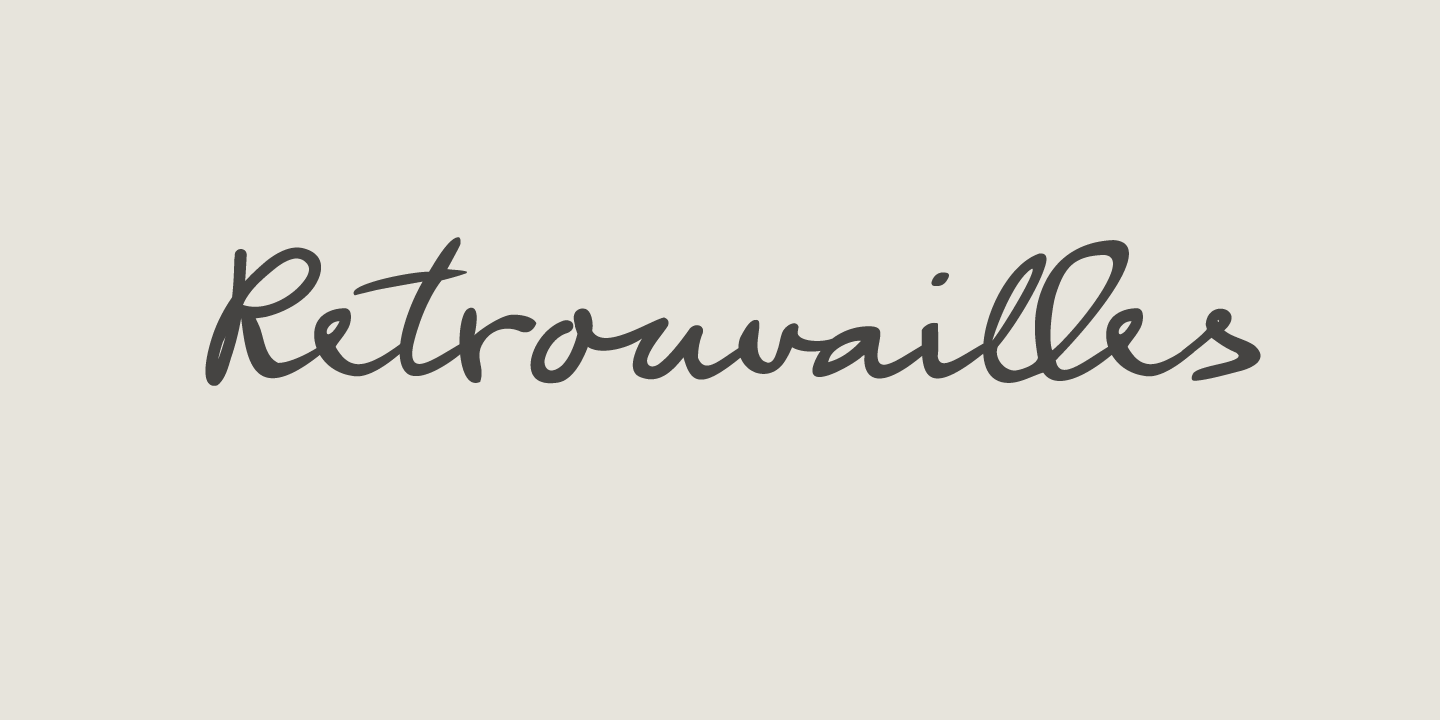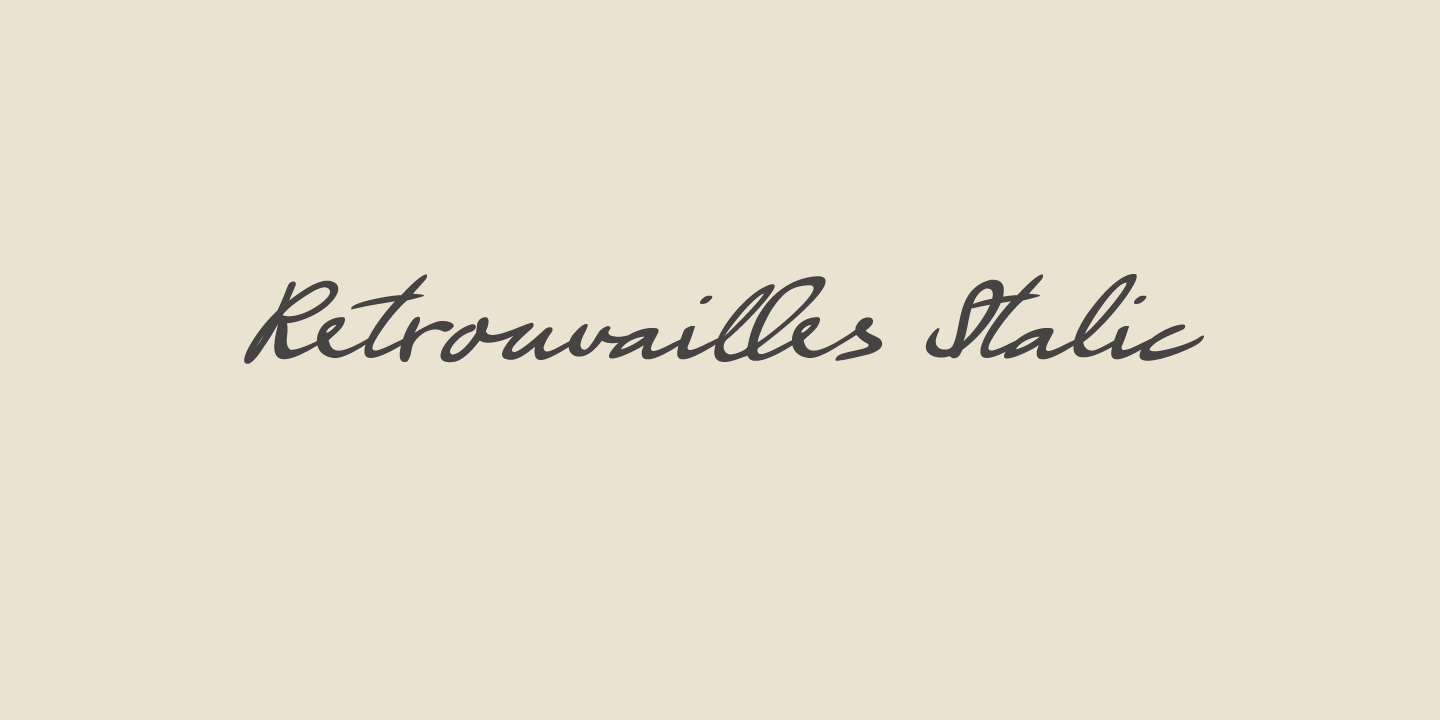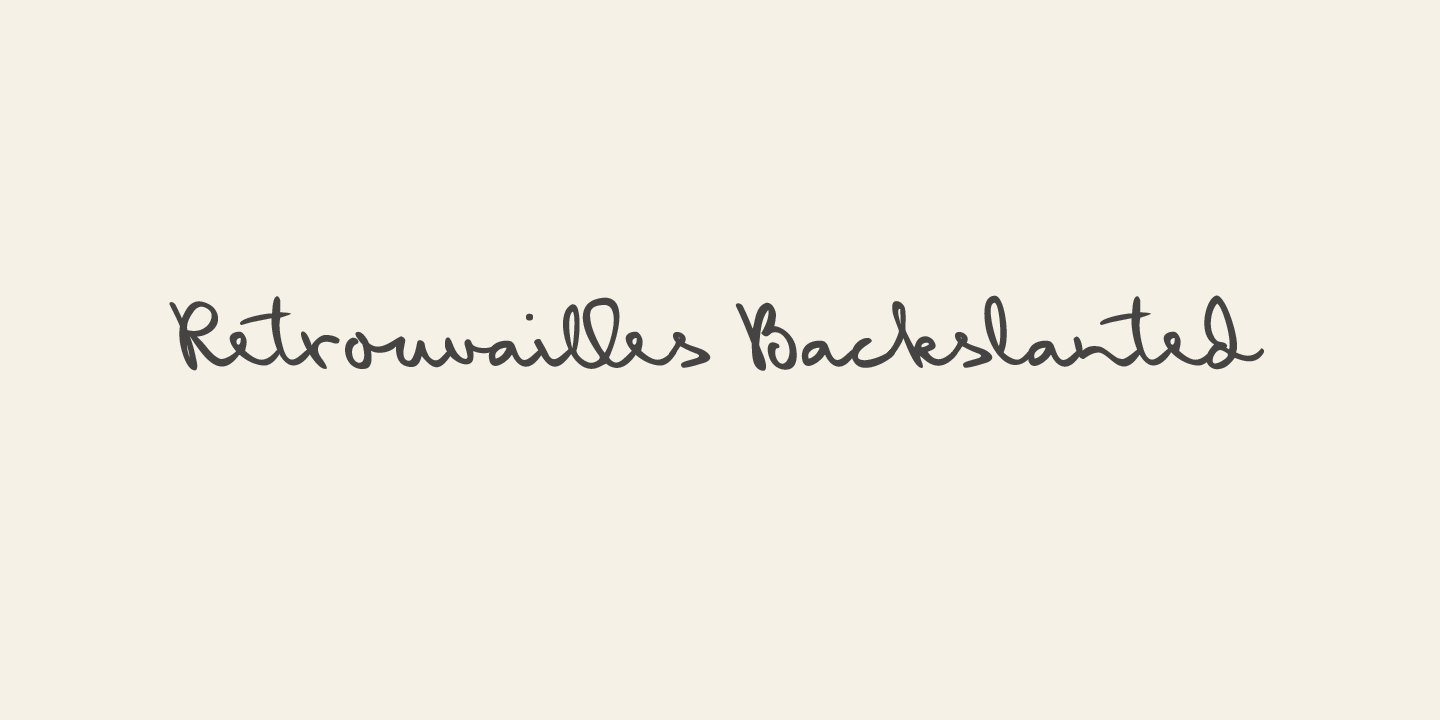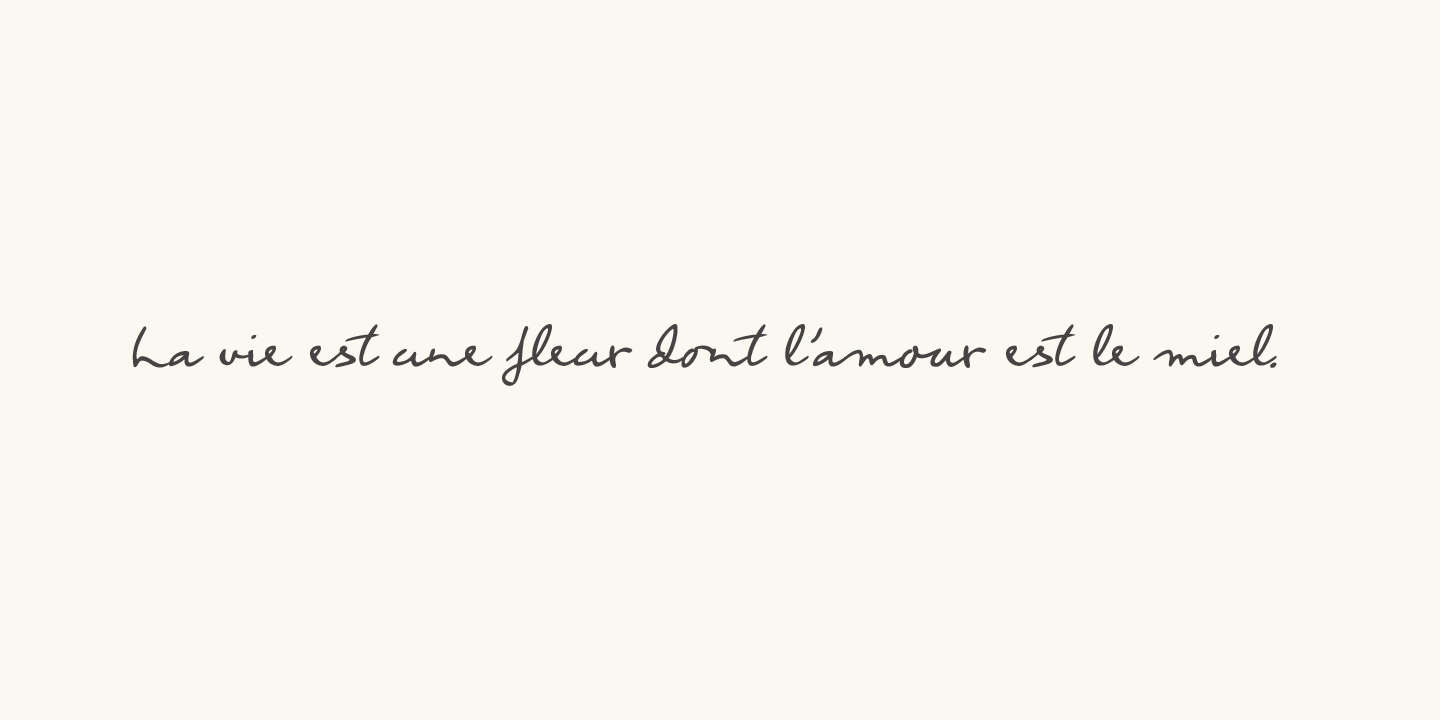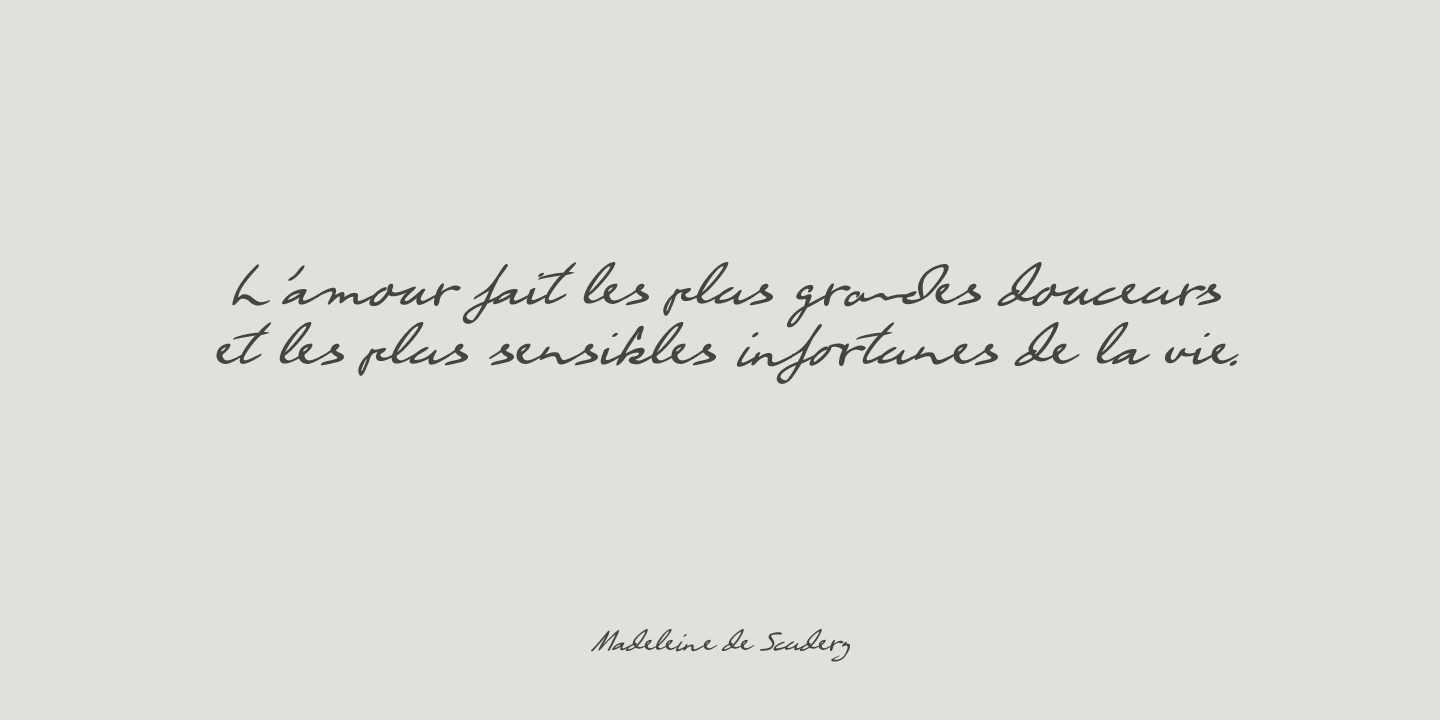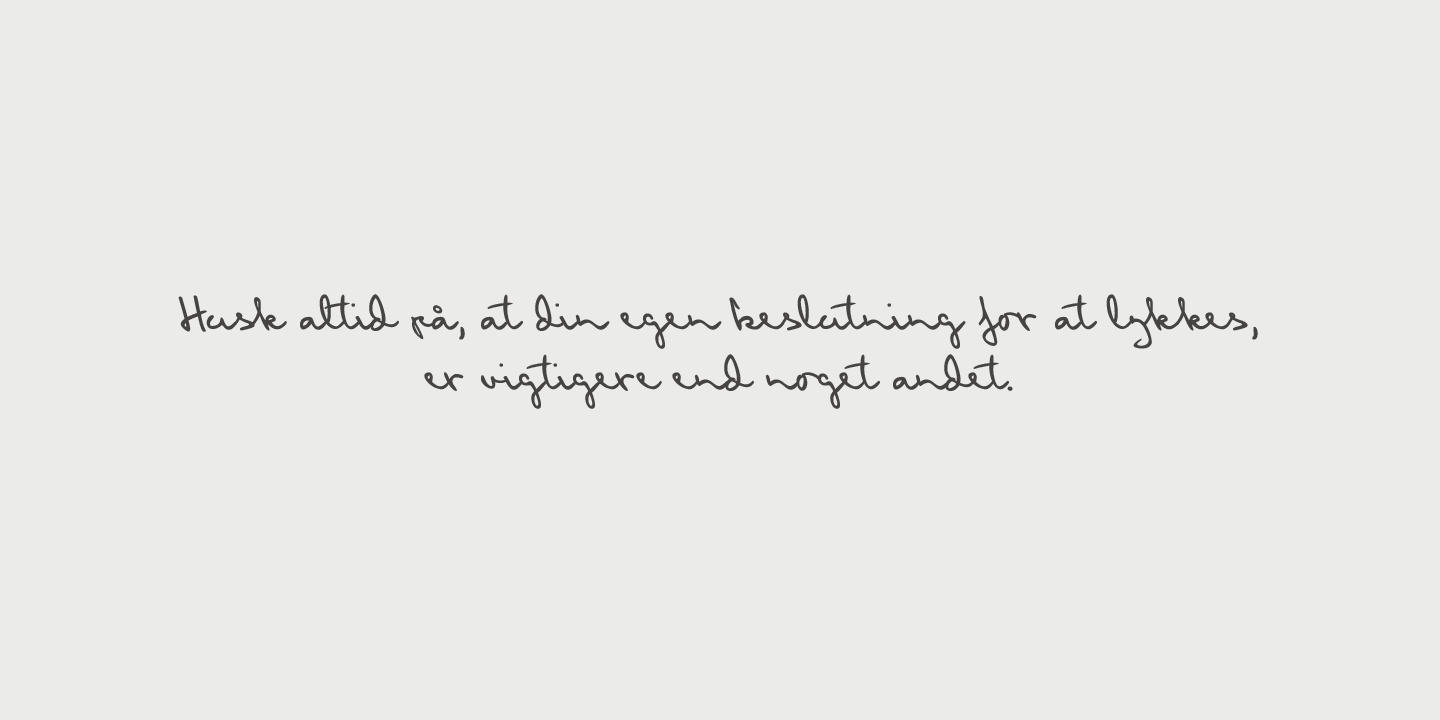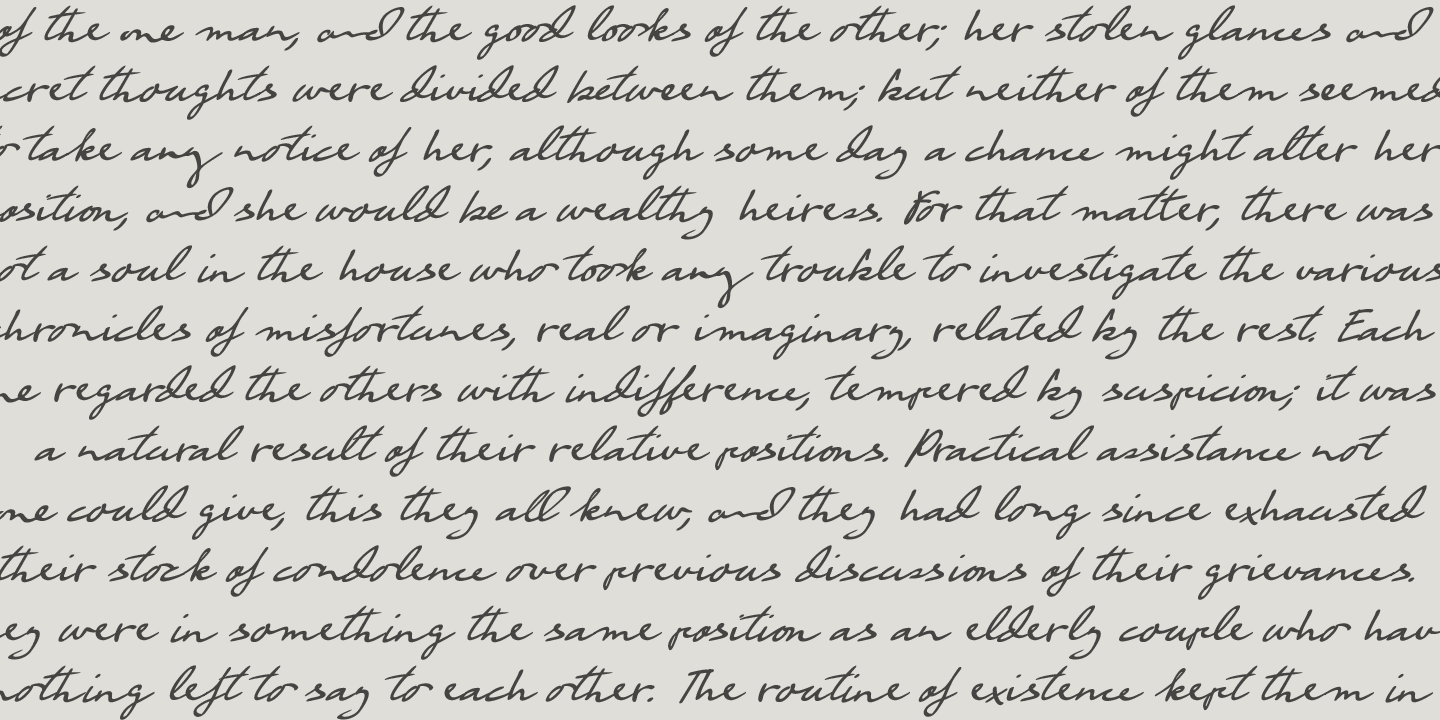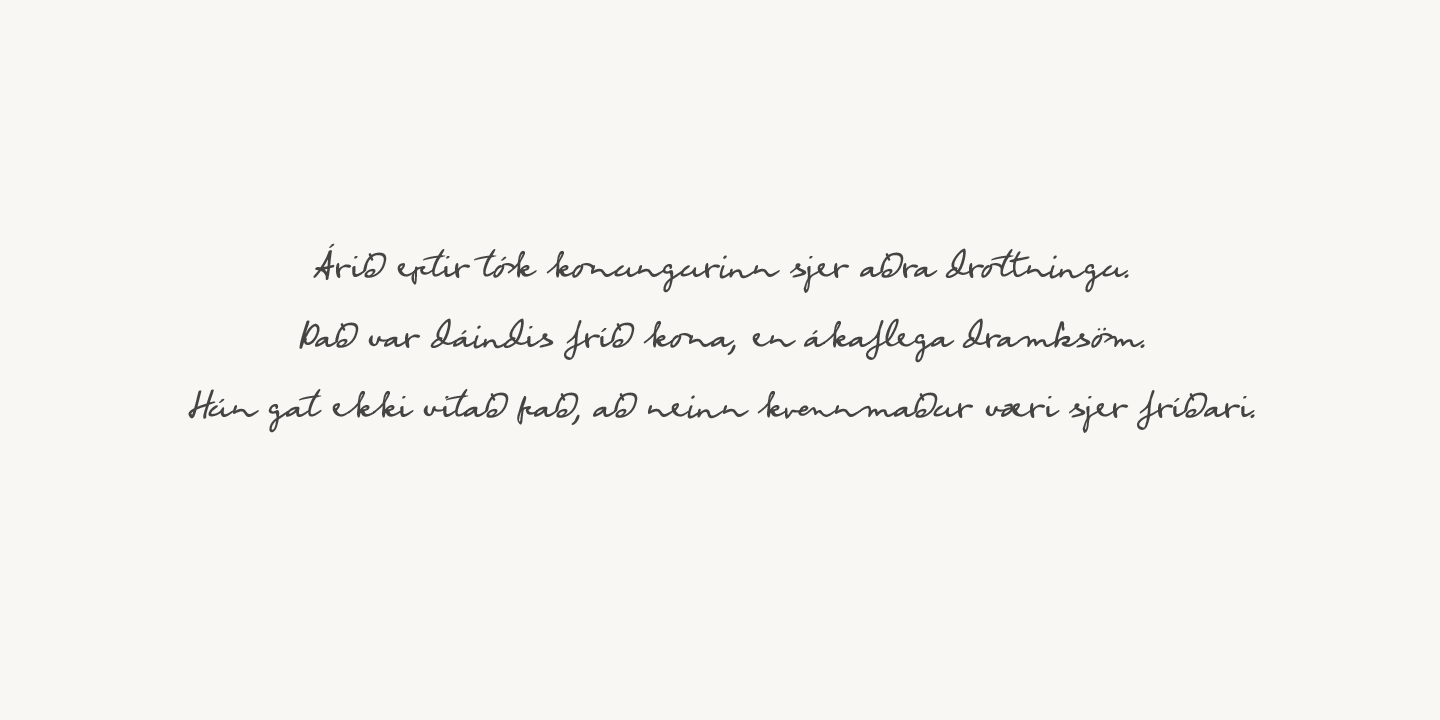
Retrouvailles is a French word, which means ‘the feeling one gets after reuniting after a long time’. This script font was based on a couple of handwritten letters and postcards and my own imagination. I used a drawing tablet for the ligatures and the connecting strokes.
Retrouvailles comes in 3 distinct styles: the slightly slanted regular style, an Italic style and a back slanted style. Retrouvailles has an abundance of goodies under the hood: it comes with a lot of ligatures and all the diacritics you could poke a stick at.